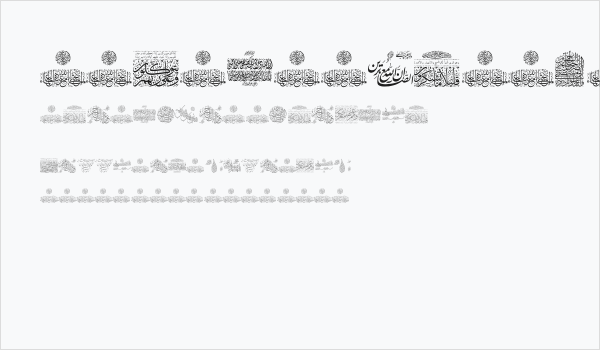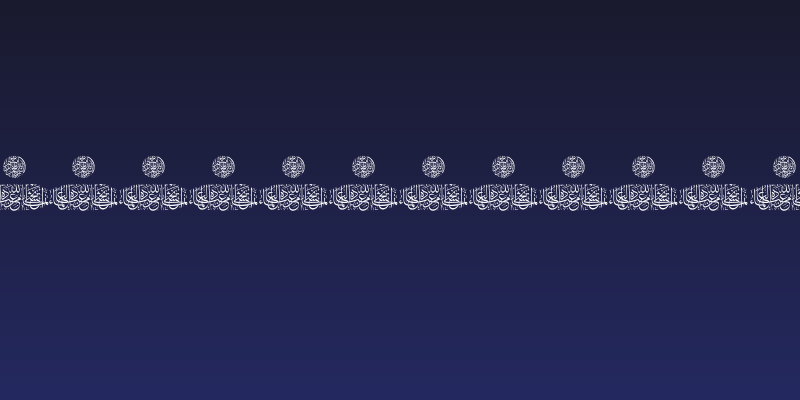
Aayat Quraan_032 Font
Aayat Quraan_032 Description
Highly ornate Arabic calligraphy with intricate detailing, featuring religious text and decorative elements, characterized by flowing lines, complex ligatures, and embellishments typical of traditional Islamic manuscript art.
| Overall Style | Traditional, Ornate, Religious |
| Use Case | Religious texts, Artworks, Decorative headings |
| Proposed Projects | Religious manuscripts, Quranic verses, ceremonial documents, mosque decorations, Islamic art prints. |